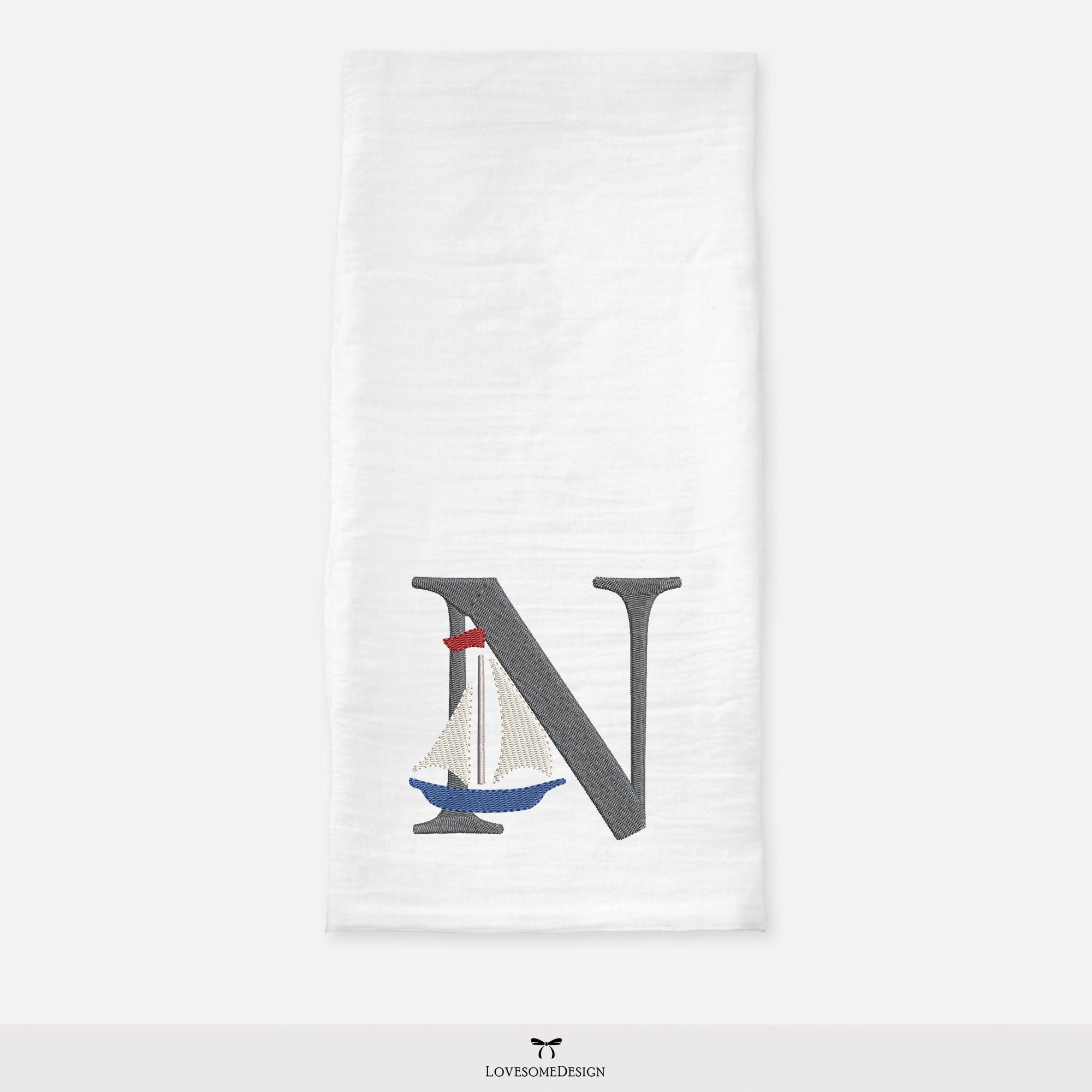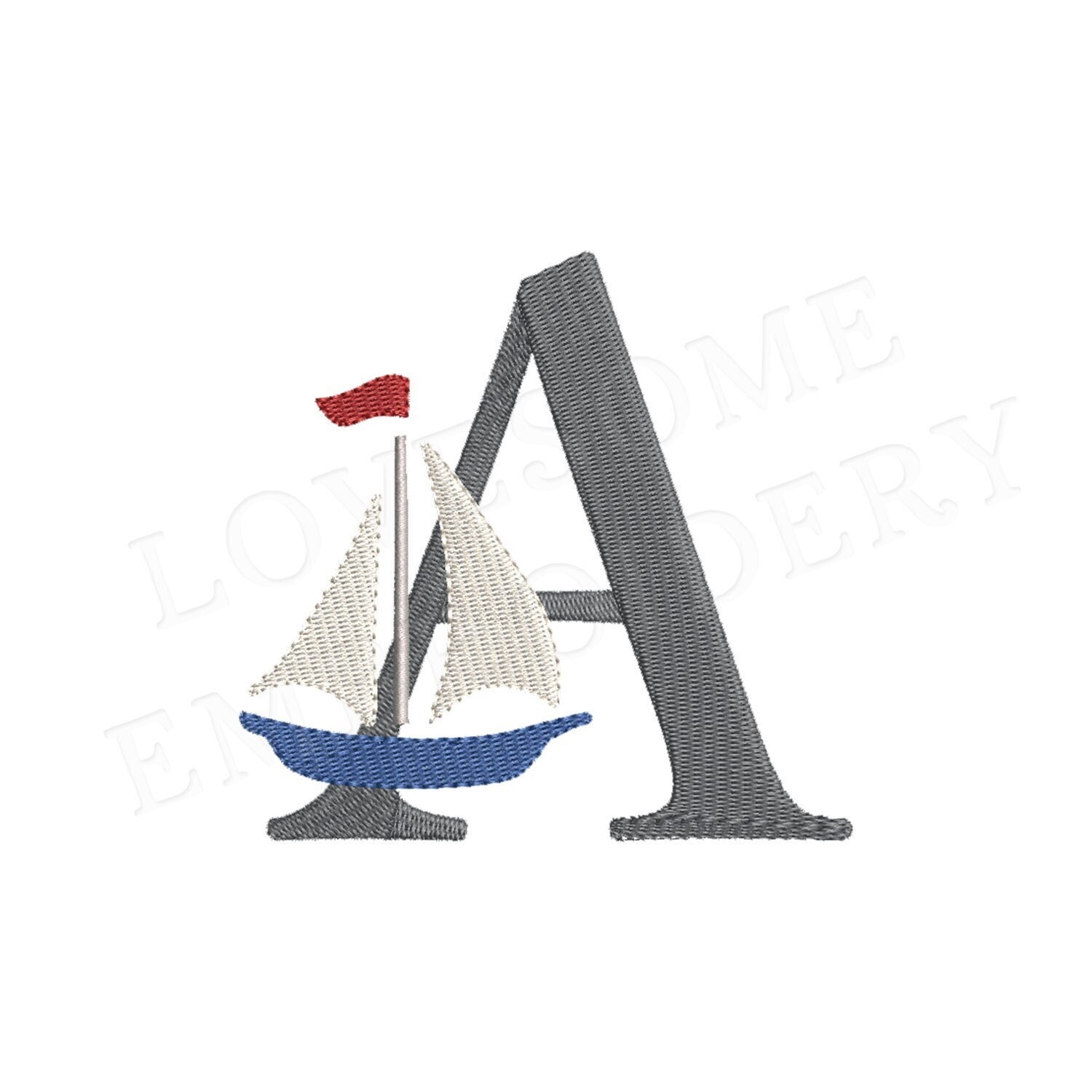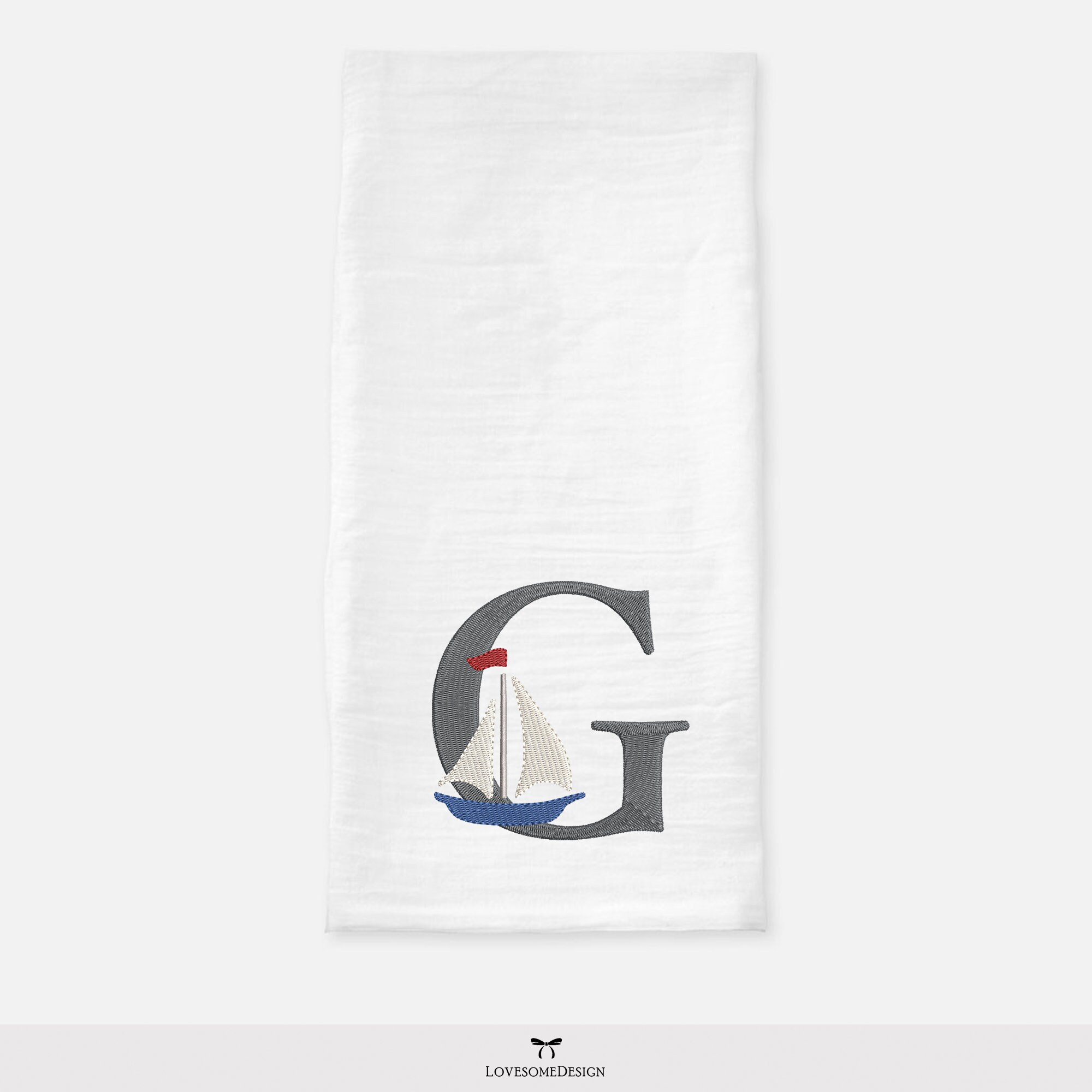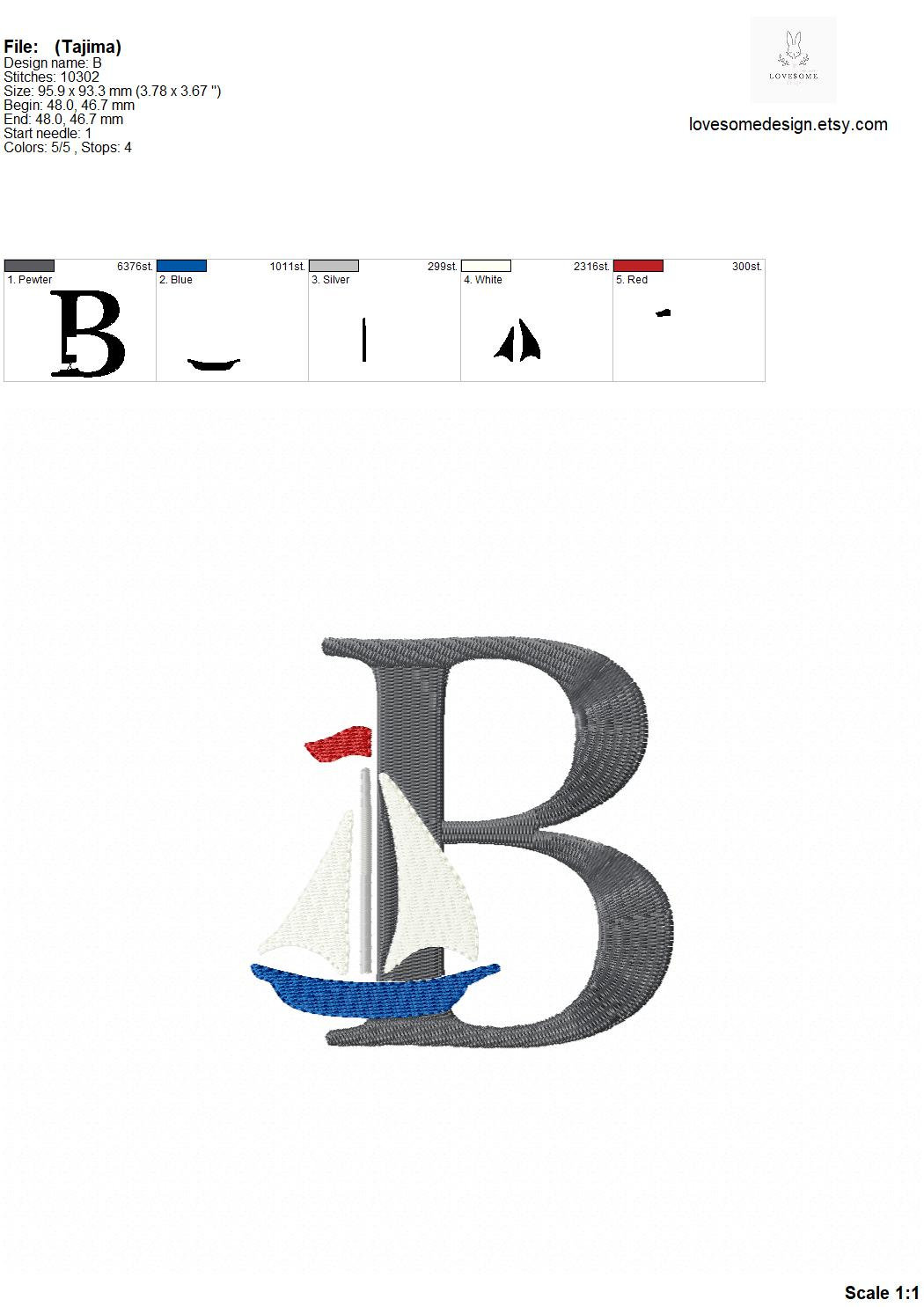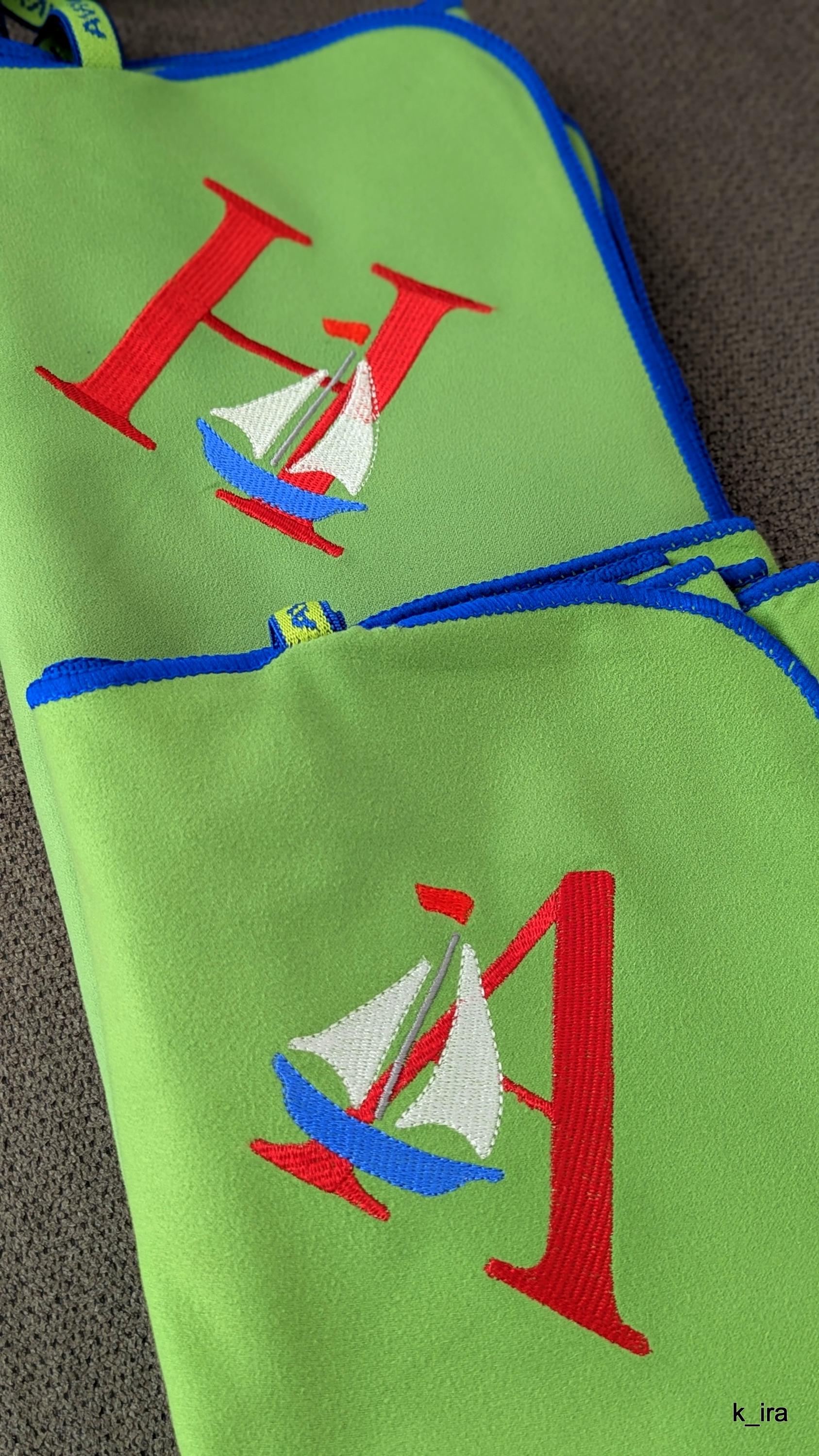
Sail Boat Monogram 4inch Embroidery Font, Nautical Machine Embroidery Letters Digital File | Lovesome Design
This listing features a machine embroidery font set which includes embroidery files of 26 uppercase nautical embroidery letters with a stylish sailboat design in 4inch size. (For the whole set, pls see the listing images.)